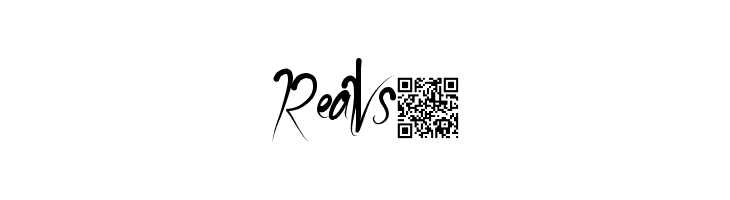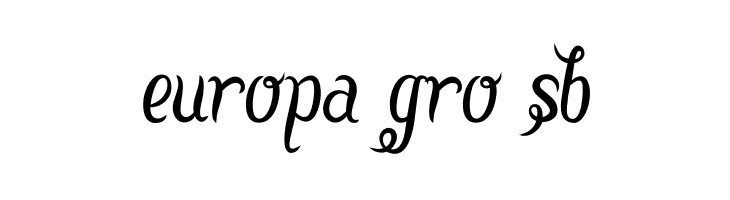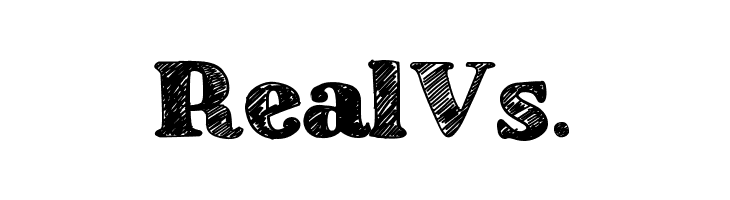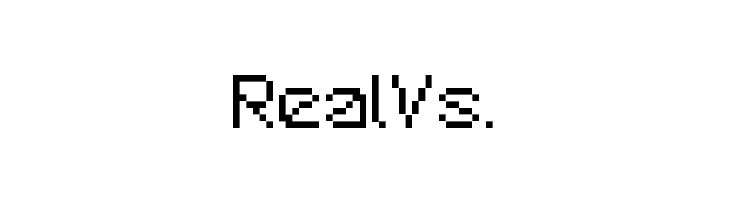
A bold, geometric, and decorative font with a modern flair.
A dynamic and expressive script font with fluid, handwritten letterforms.
A modern, geometric font with a tall, condensed structure and consistent stroke width.
A modern, geometric typeface with a clean and professional look.
A modern, sans-serif font with clean lines and balanced spacing.
A bold, sans-serif font with a shaded, three-dimensional effect.
A bold, sans-serif font with a 3D shaded effect for a modern, impactful look.
A modern sans-serif font with clean lines and balanced proportions.
A bold, modern sans-serif font with a clean and professional appearance.
A bold, italic sans-serif font with a modern and dynamic style.
A clean, modern italic font with smooth curves and excellent readability.
A bold, playful handwritten font with thick, uneven strokes.
A playful, bold, and hand-drawn font with a cartoonish style.
A bold, geometric font with a futuristic and modern design.
A modern, geometric font with uniform stroke width and clear legibility.
A bold, geometric font with sharp, angular edges and a modern aesthetic.
A bold, distressed font with a rugged, textured style.
A playful, hand-drawn font with elongated, whimsical letterforms.
A bold, jagged font with an eerie, horror-themed design.
A bold, dripping font perfect for spooky Halloween designs.
A bold, textured serif font with a hand-drawn, playful style.
A bold, hand-drawn font with a brush-like, expressive style.
A playful, hand-drawn font with a sketchy, textured appearance.
A dynamic and flowing script font with elegant curves and artistic flair.